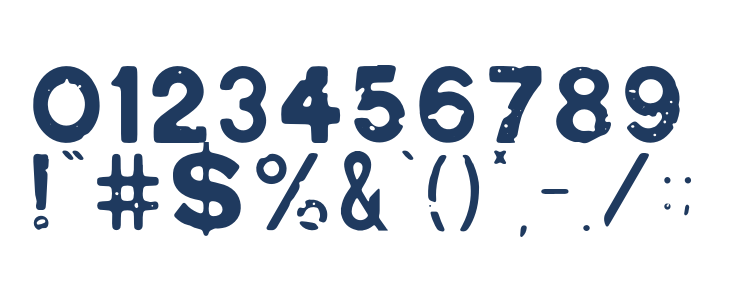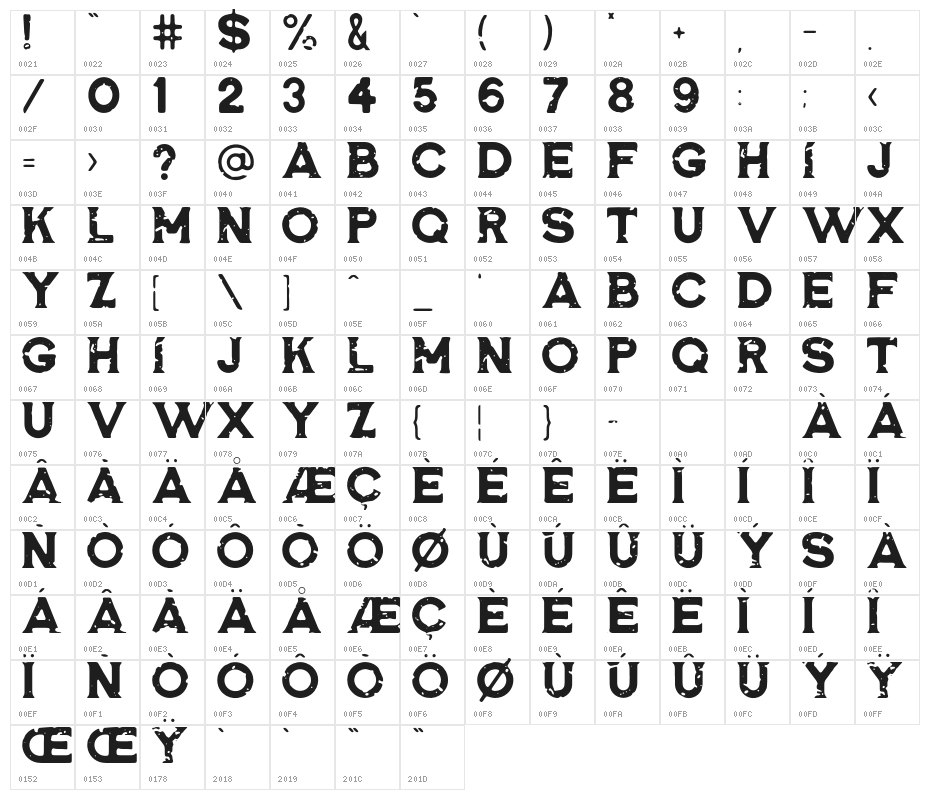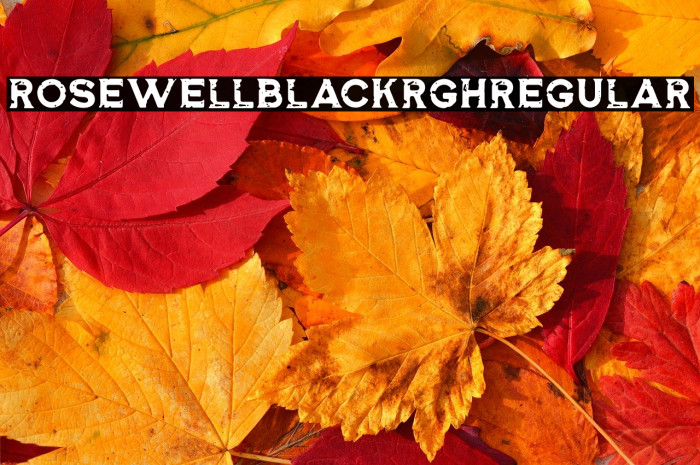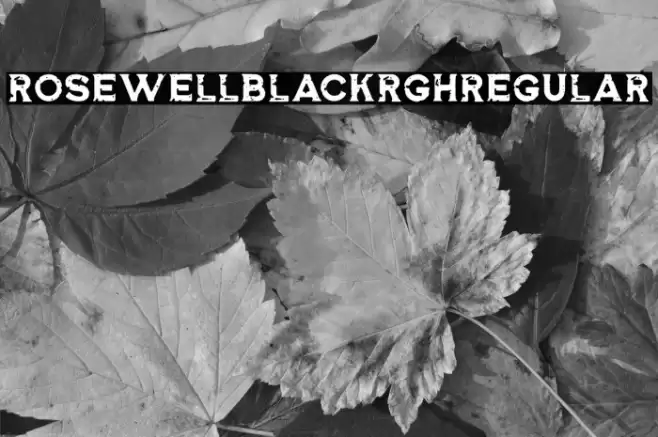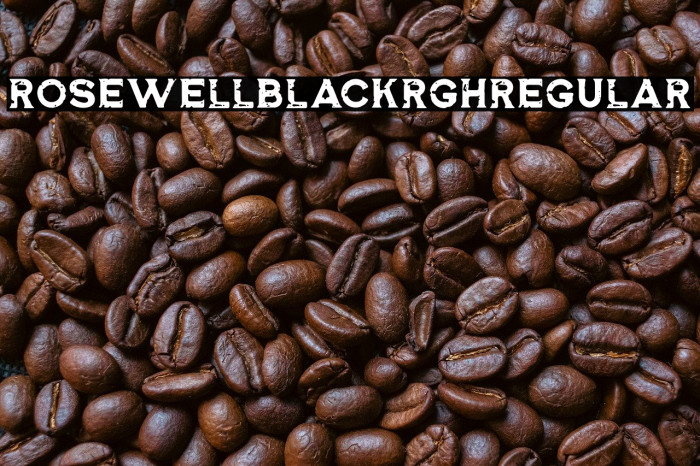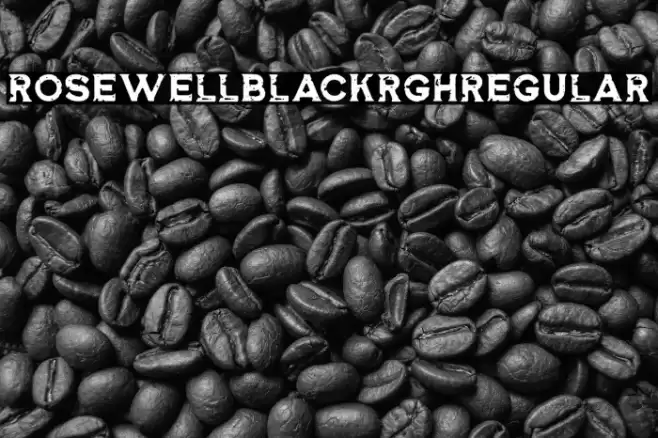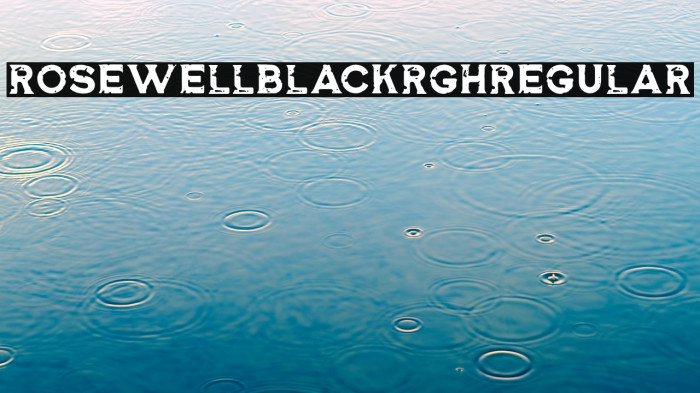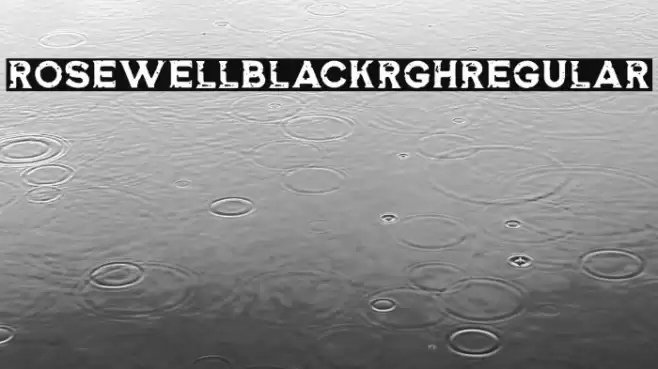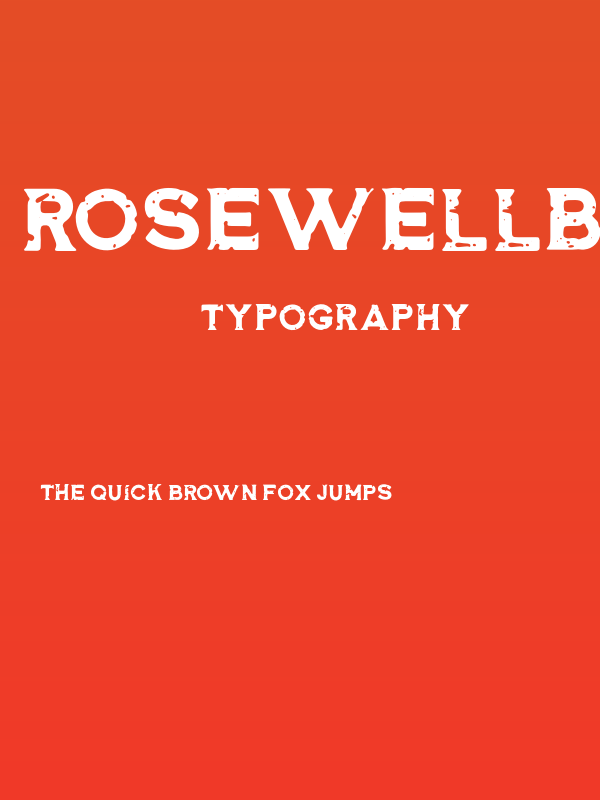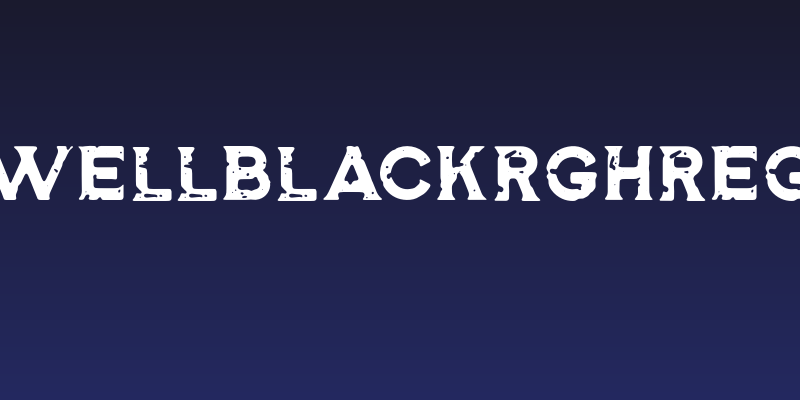
RosewellBlackRGHRegular Font
RosewellBlackRGHRegular Description
This font features a bold and rugged style with a distressed texture, giving it a vintage and worn appearance. The characters are thick and sturdy, with uneven edges and a slightly rough finish that adds to its rustic charm. The uppercase and lowercase letters maintain a consistent weight, while the numbers and special characters follow the same distressed aesthetic. This font is ideal for projects that require a bold statement with a touch of nostalgia and character.